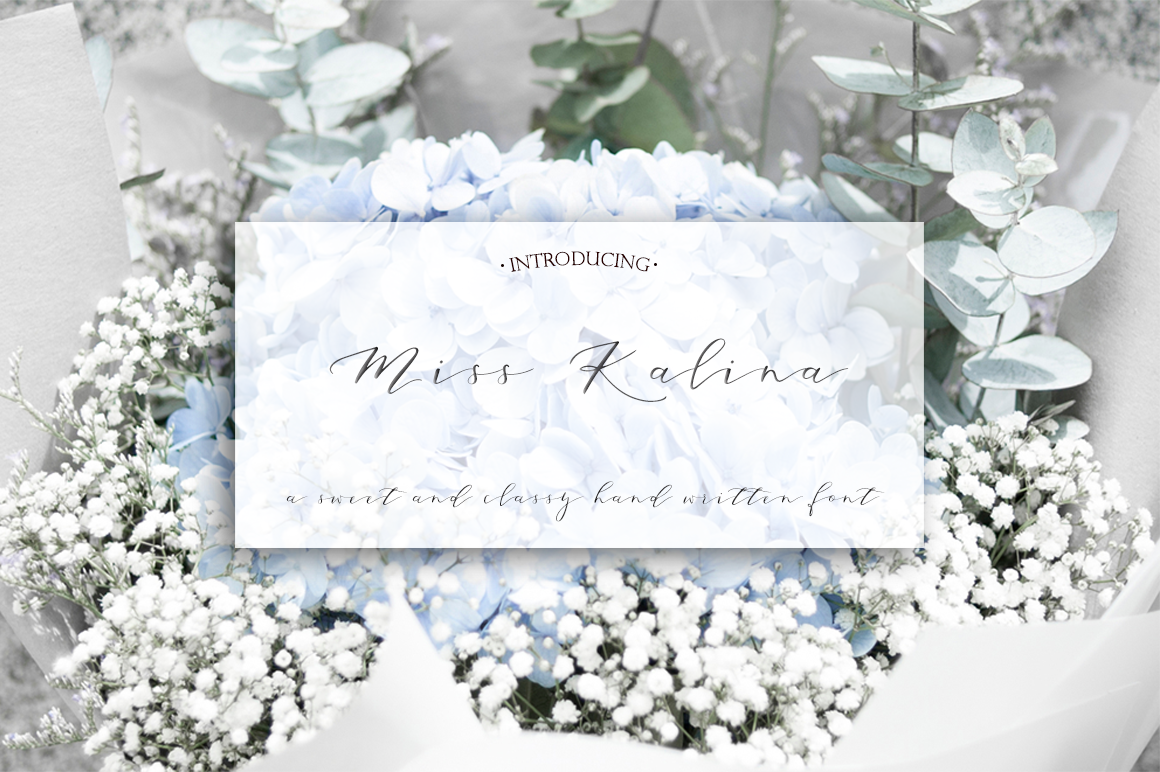
Miss. Kalina Script Font
Miss. Kalina is a handwritten script font that is perfect for:
- Wedding and Event planning
- Greeting cards, prints, menu and magazine layouts
- Branding, social media, packaging and more.